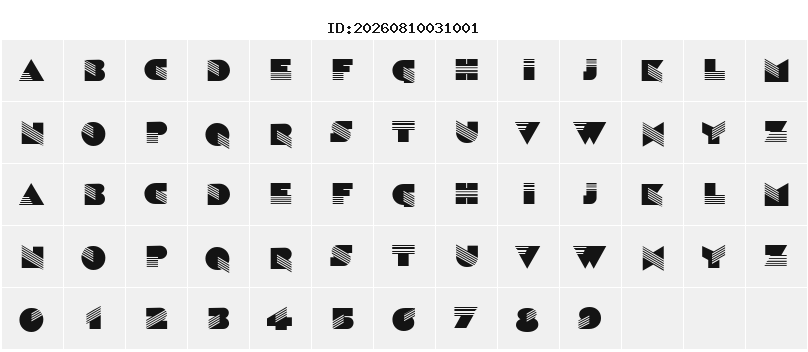
PT Moda Preview
• Font Name: PT Moda
• Full Font Name: PT Moda
About PT Moda.ttf
PT Moda.ttf is a modern, elegant sans-serif font designed for ultimate readability and visual harmony. Perfect for branding, headlines, web design, and print materials.